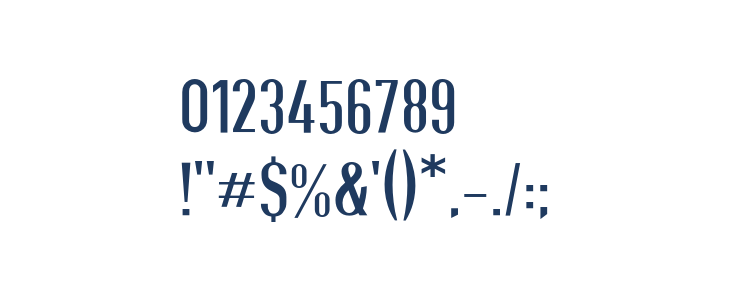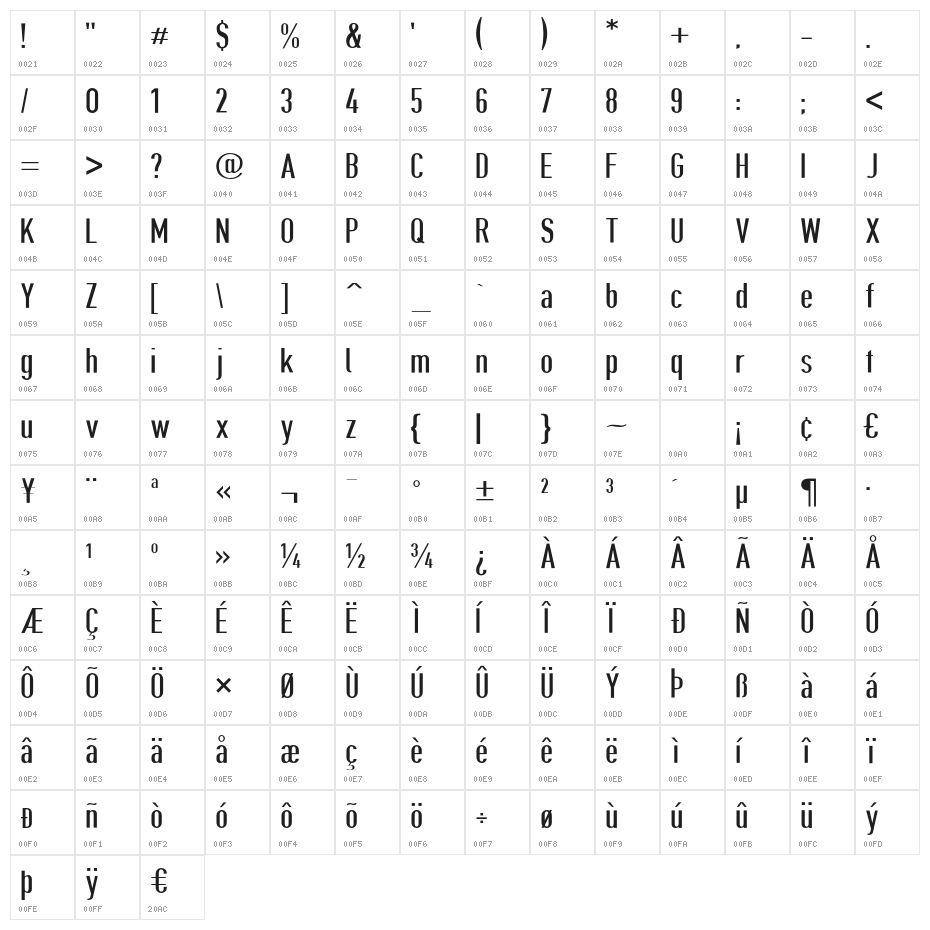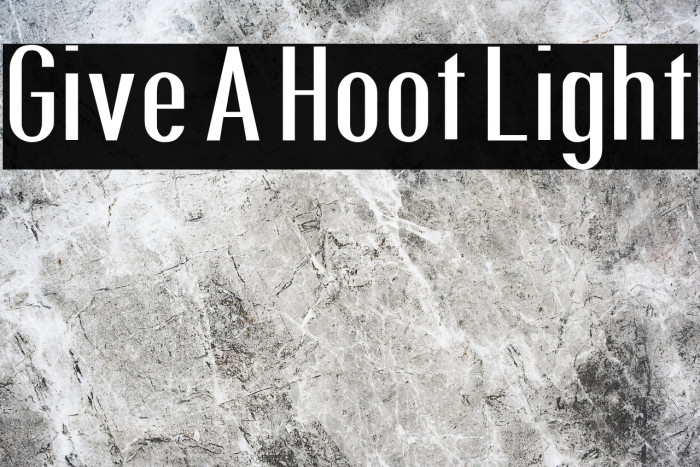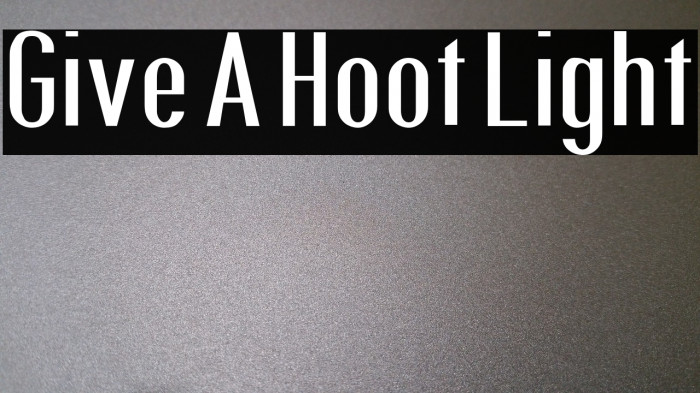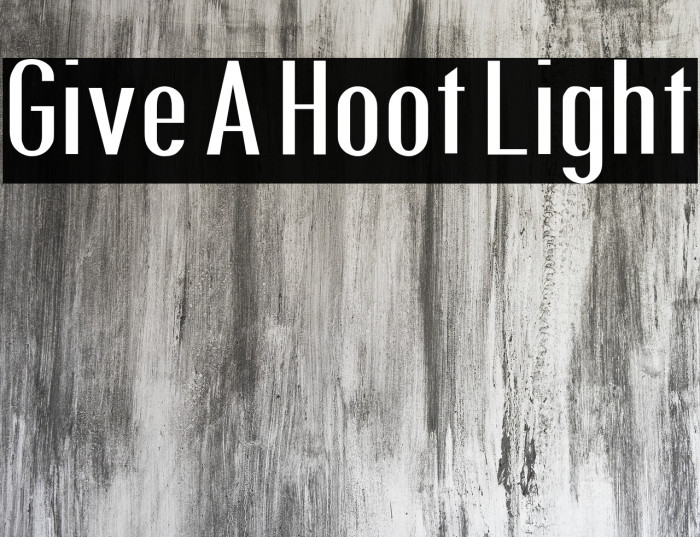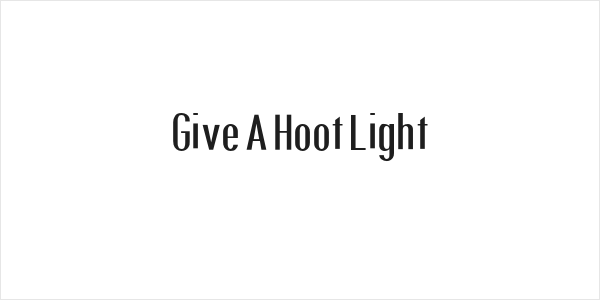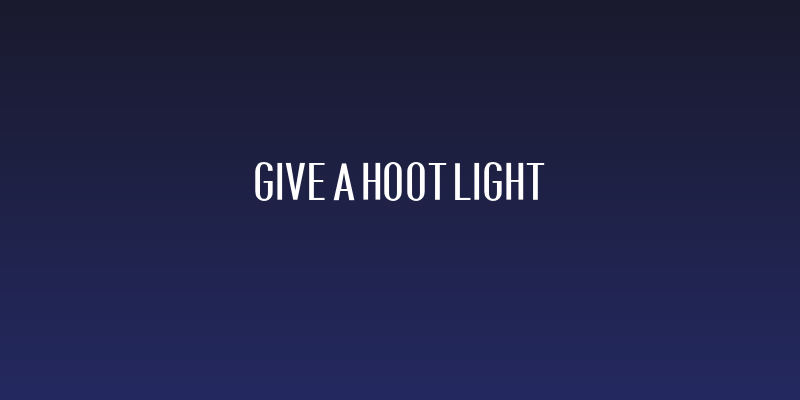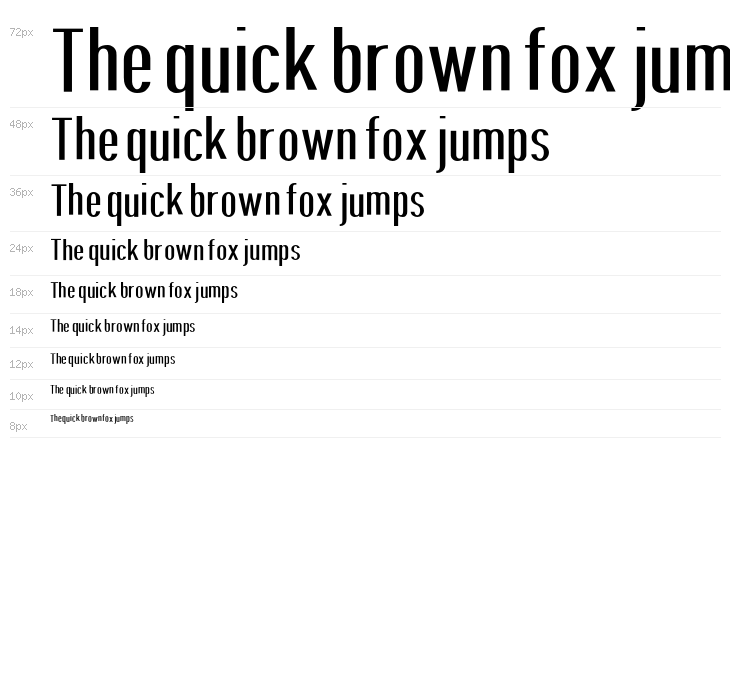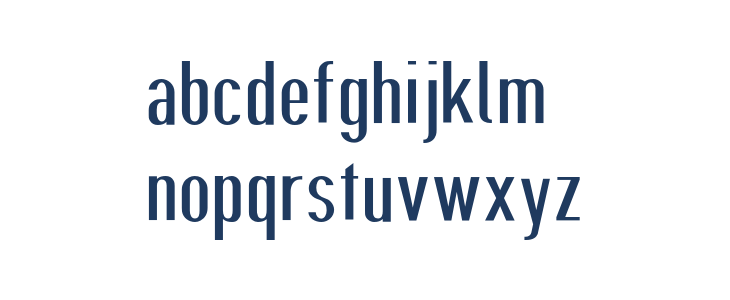
Give A Hoot Light Font
Give A Hoot Light Description
This font features a clean and modern sans-serif design with a tall and narrow structure. The characters are evenly spaced, providing a balanced and readable appearance. The uppercase letters are bold and commanding, while the lowercase letters maintain a consistent height, enhancing legibility. The numerals are straightforward and align well with the overall style. Special characters are distinct and integrate seamlessly with the rest of the font, making it versatile for various applications.
| Proposed Projects | Ideal for branding, advertising, and editorial design projects where a modern and professional look is desired. |